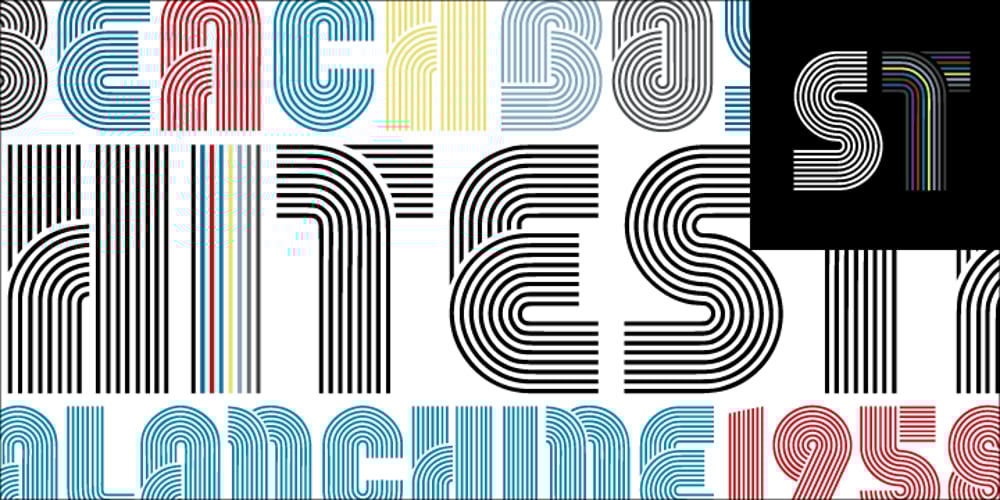
Stripes
Stripes font
Stripes Font Family was designed by Ralph M. Unger and published by profonts. Stripes contains 1 styles and family package options. Stripes is a caps only font and does not contain additional ligatures, because there is an easy way to create as many of them as you like. To form a ligature, convert your word or word string into vectors. Activate the corner points of the straight lines (not the round ones) of a letter and drag them over the next or the previous letter. This way you can create any ligature of your own. Beware of overkilling, it could decrease the legibility of your text. Besides the normal J, Stripes contains a stylistic alternate which should be used to avoid ugly gaps between critical letter pairs (see pdf document).